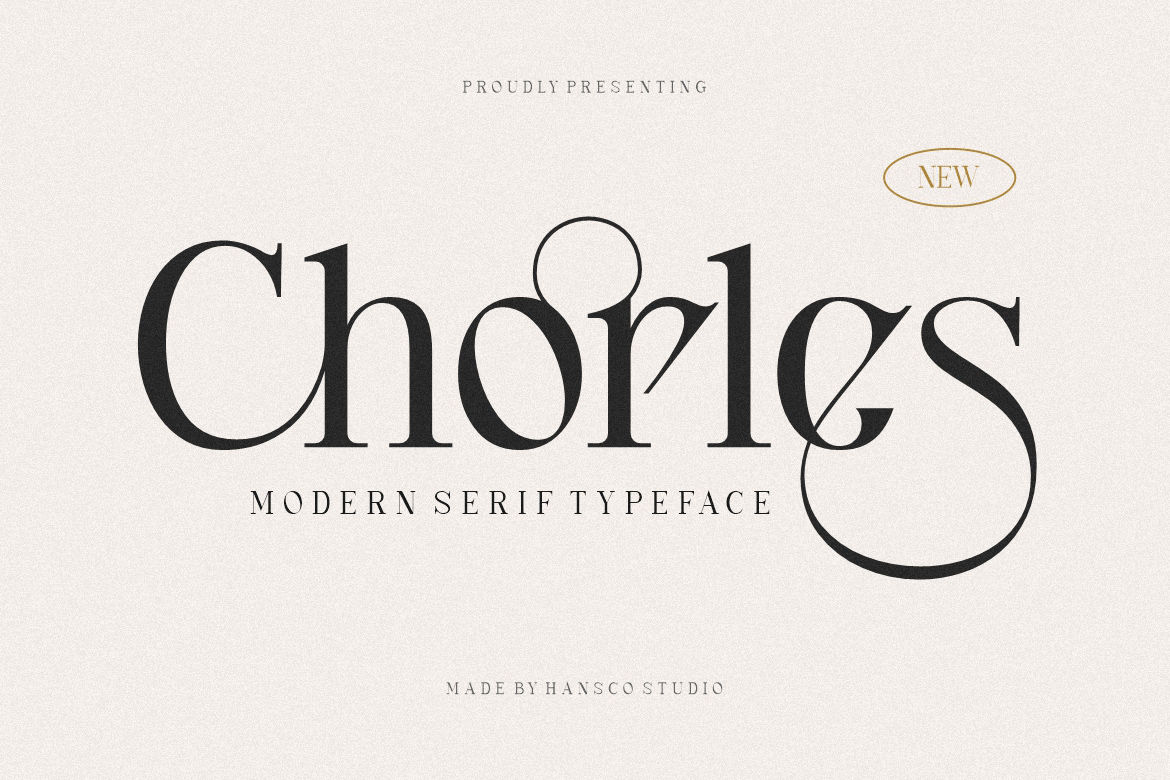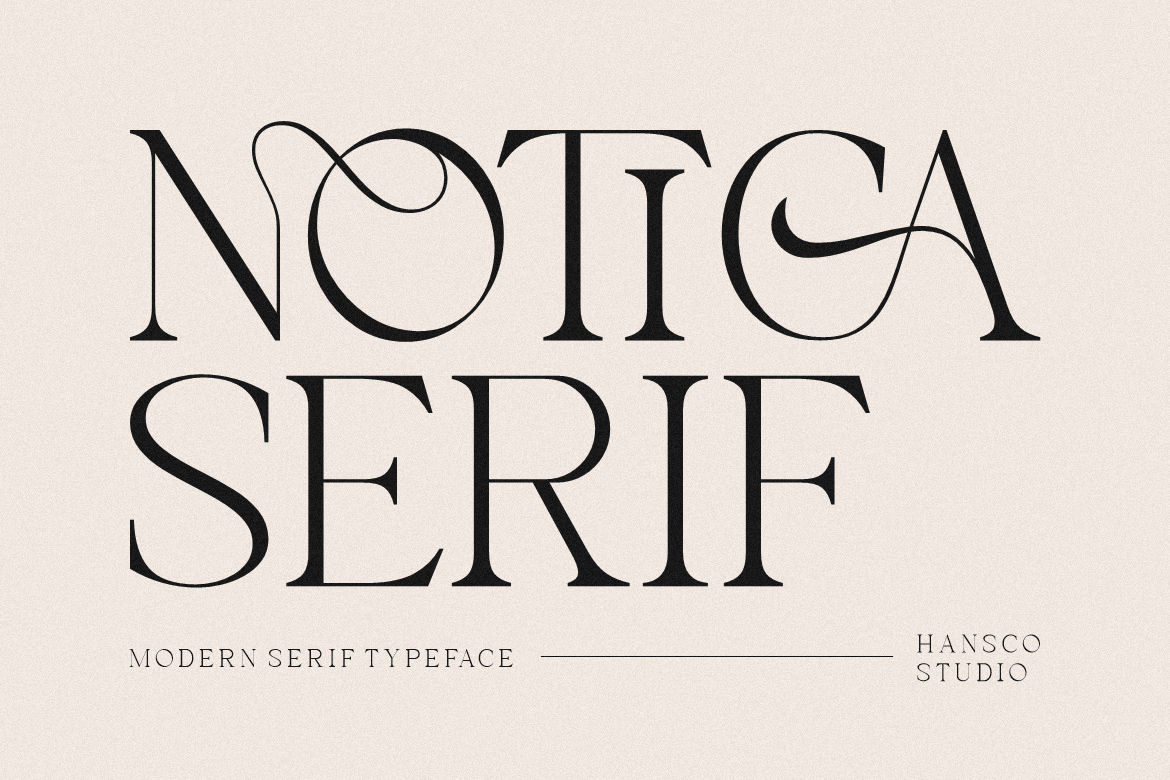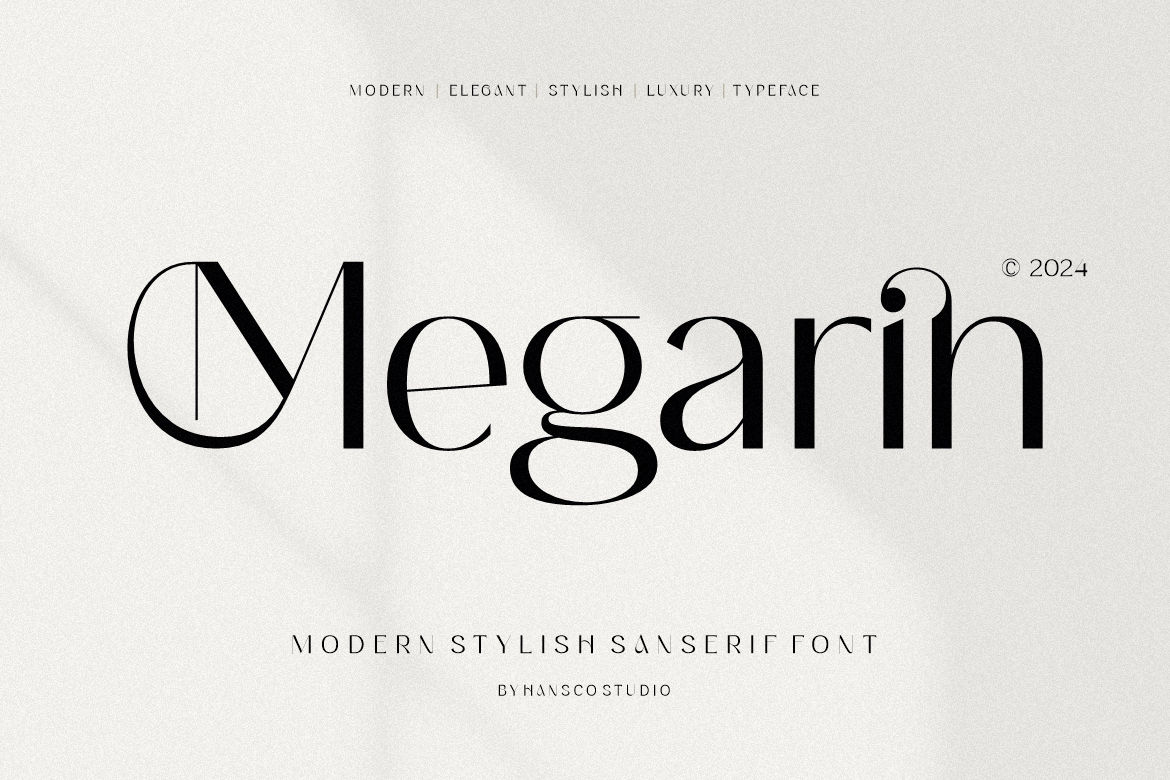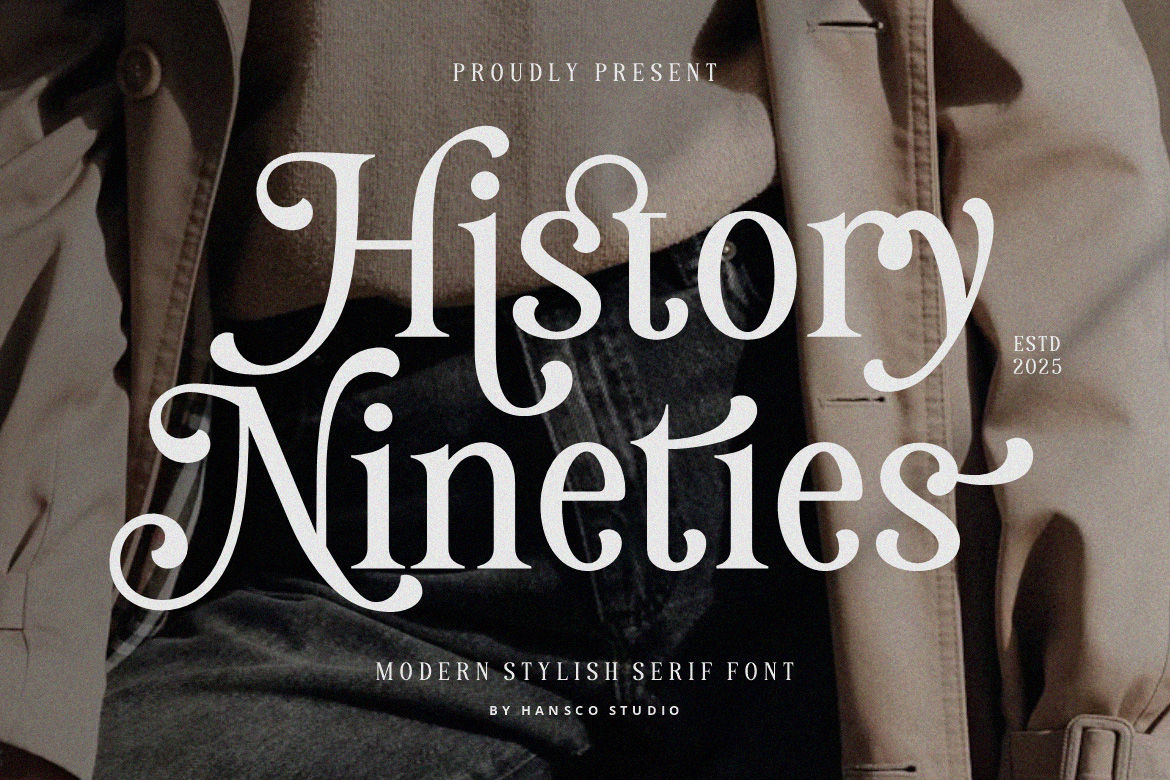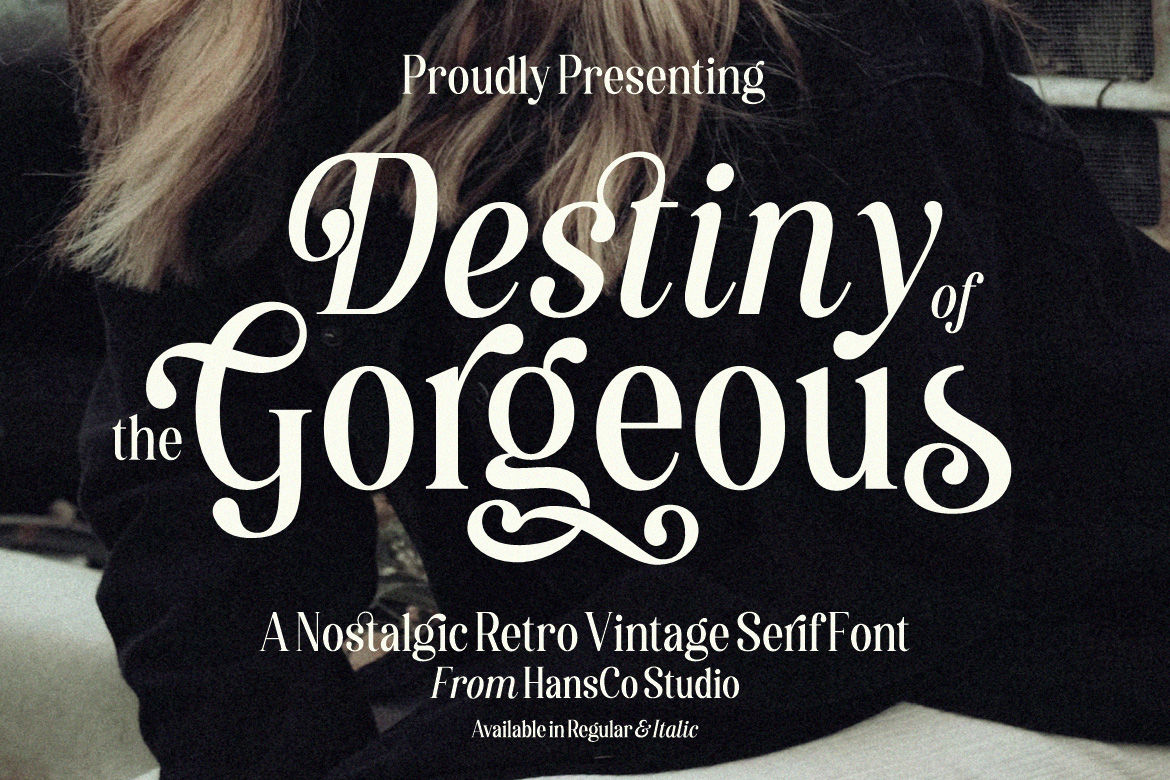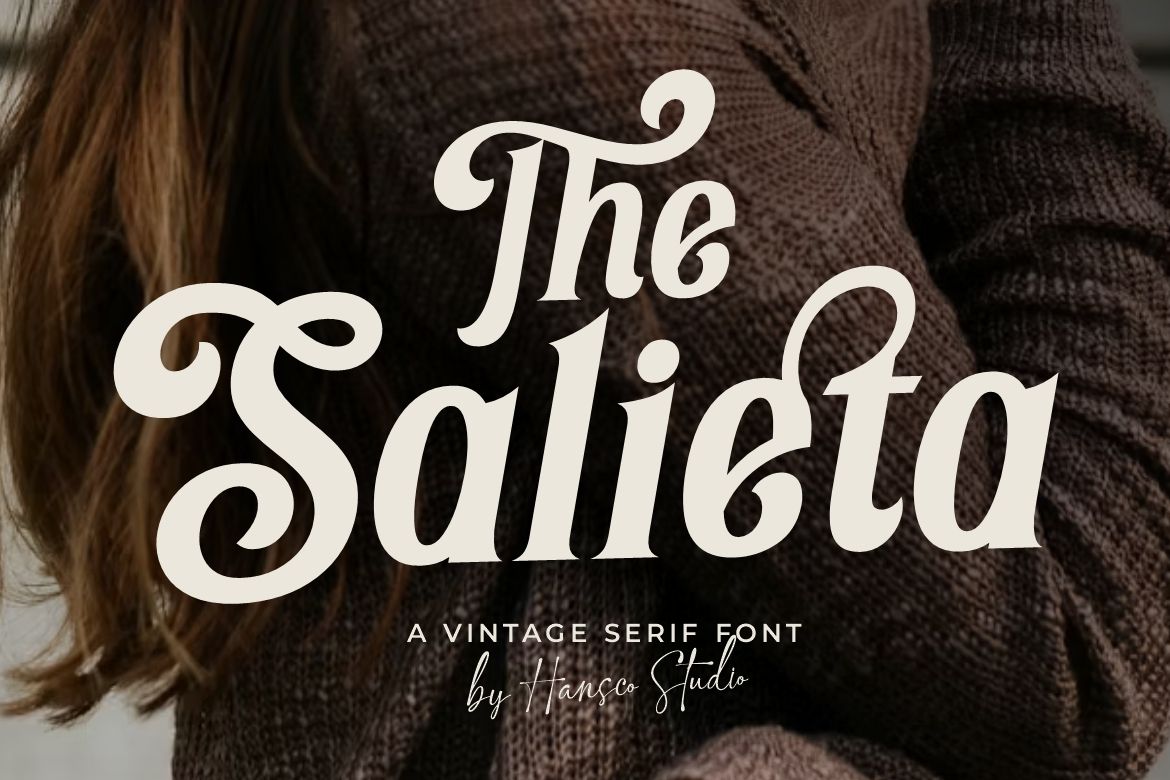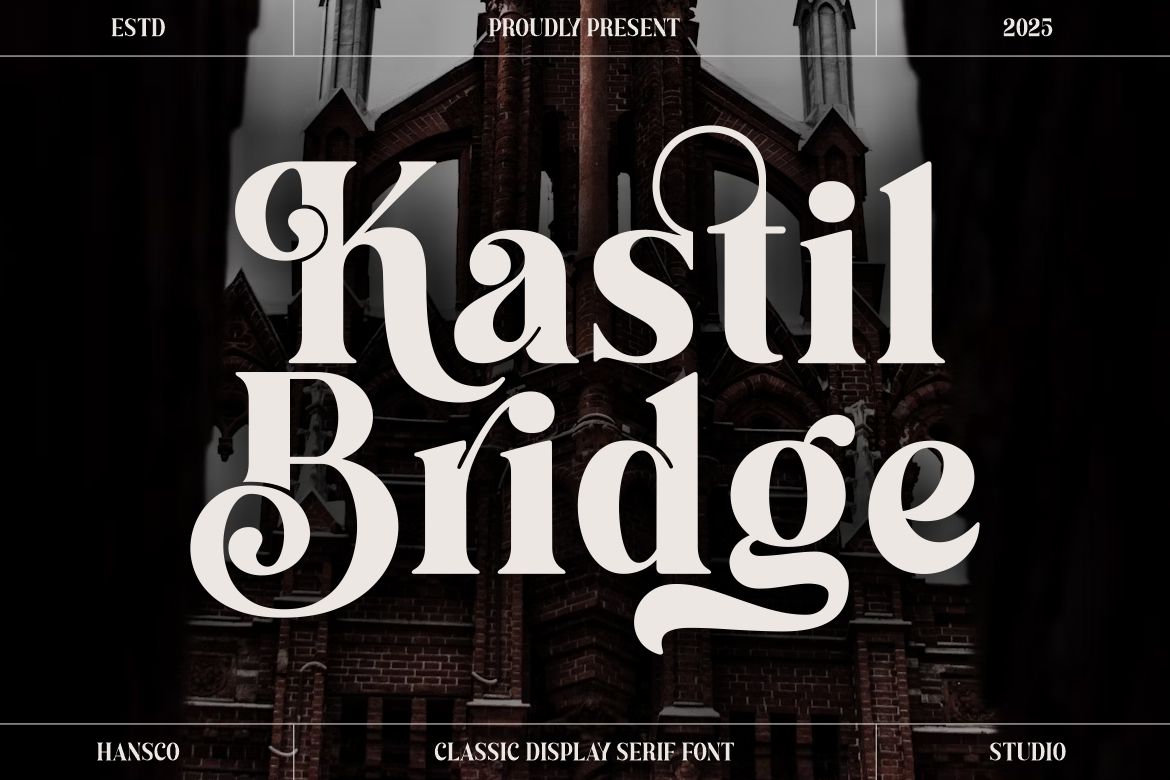
What Makes Fonts Elegant? Check Out Tips and Design Ideas!
If you’ve ever looked at a brand logo or magazine cover and thought, wow, that looks so classy, chances are the secret lies in the typography. Knowing what makes fonts elegant and choosing the right one plays a huge role in shaping how a design feels.
Elegant fonts are the go-to choice for projects that need to look refined, timeless, or professional. They’re also very versatile, suitable for fashion branding, wedding invitations, and even professional projects.
But what makes a font be categorized as elegant? And how do you choose the right one for your design? Let’s explore some simple yet effective tips and look at seven of the most beautiful elegant fonts from our studio!
What Makes Fonts Elegant
An elegant font mostly looks effortless but refined. Most elegant typefaces share similar qualities, such as:
⦁ Thin and High-Contrast Strokes
These fonts often play with thickness. You’ll notice thin lines combined with thicker downstrokes, creating visual rhythm and balance. This contrast gives a sense of luxury, making the letters feel light but structured.
⦁ Smooth Curves and Fine Details
Elegance lies in subtlety. A font with gentle curves and clean letterforms, especially around letters like “S,” “C,” or “G” instantly feel polished. Designers often use these shapes to create an emotional connection that feels calm yet graceful.
⦁ Refined Serifs
While sans-serif fonts can also appear elegant, serif fonts often take the spotlight because of their decorative yet classic edges. They suggest heritage and prestige, perfect for high-end brands or timeless design concepts.
⦁ Minimal Ornamentation
Elegant fonts don’t need to scream for attention. They’re confident in its simplicity. Minimalism paired with perfect spacing and thoughtful proportions makes it visually pleasing and versatile across projects.
Where You Can Use Elegant Fonts
Elegant fonts work beautifully in any setting where you want to project class and trust. Some perfect examples include:
• Luxury branding, such as fashion, jewelry, or cosmetics.
• Wedding and event invitations.
• Editorial layouts, for magazines, book covers, and blogs.
• Web design and portfolios
When used right, fonts elegant add emotional weight and a sense of storytelling. It makes readers feel something, whether it’s calmness, nostalgia, or admiration which is exactly what you want in visual communication.
7 Best Elegant Fonts from HansCo Studio
HansCo Studio has an incredible collection of typefaces that redefine elegance. Each font carries its own mood, personality, and purpose. Let’s take a closer look at seven of our best:
1. Salieta Font
Salieta is the definition of classic elegance. With bold serifs and sweeping swashes, it combines a vintage charm with modern readability. It’s perfect for branding projects, logos, packaging, or editorial headlines that need a high-end touch.
2. Destiny Gorgeous Font
This stylish font looks feminine. It’s a retro-inspired serif with tall proportions and flowing details. Each letter feels like part of a storybook, yet it fits perfectly into modern branding. You can use it for magazine covers, product packaging, or logos.
3. Kastil Bridge Font
If you’re looking for a classic, strong, regal mood, try this one. Kastil Bridge is bold and classy, giving your design instant authority and grandeur. The sharp edges and solid base serifs make it suitable for a design that needs to feel luxurious yet powerful.
4. History Nineties Font
History Nineties mixes the warmth of the past with the polish of the present. It features soft curves and vertical balance, it feels trendy yet refined. It’s an ideal fonts elegant for fashion designers, social media templates, or wedding invitations.
5. Megarin Font
Next, this is a beautifully modern serif with clean lines and delicate proportions. Inspired by romantic aesthetics, it adds a subtle charm that’s perfect for weddings, editorials, and brand identities.
6. Notica Serif Font
For an artistic, graceful, classic mood, you should give this font a try. It balances elegance with creativity. Its soft, curved serifs and elegant ligatures give it a high-fashion look. It’s the type of font you’d see in a luxury magazine or fine art.
7. Chorles Font
Luxurious yet bold and expressive, Chorles is for designers who love a bit of drama (in a good way). It has sweeping strokes and stylish contrasts which make it stand out while remaining classy. Each letter seems hand-crafted and has an artisanal vibe.
Tips for Using Elegant Fonts Effectively
Now that you’ve found your perfect typeface, here are a few quick tips to make it shine in your design: